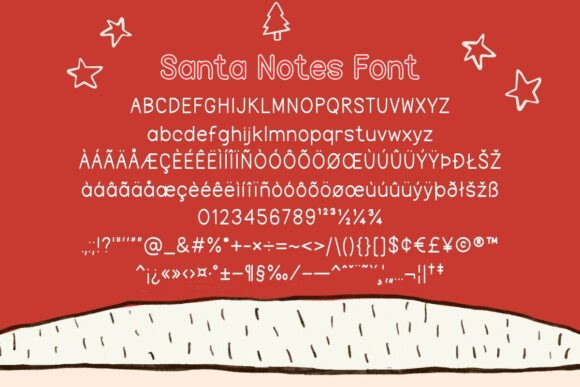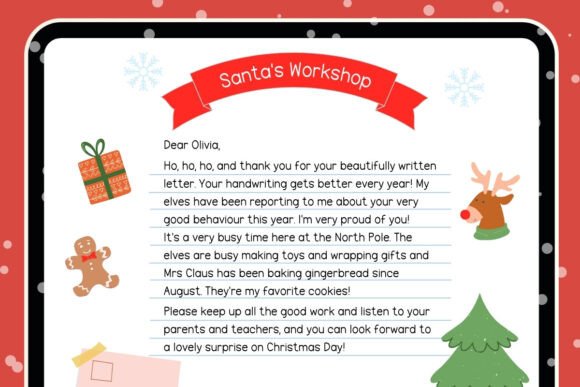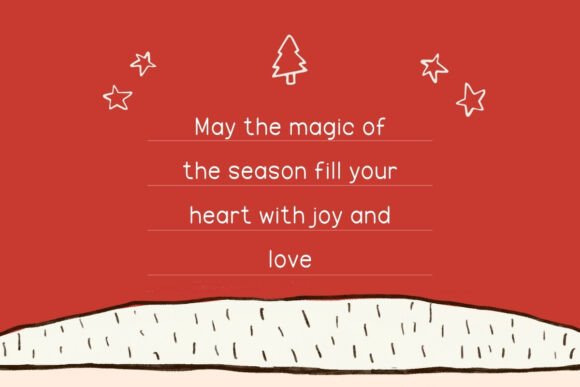
Introduction to Santa Notes Font
Have you ever found yourself scribbling notes in a meeting or brainstorming ideas for a creative project, only to realize that your handwriting just isn’t cooperating? The frustration of trying to decipher your own scribbles can be real, but what if you had a tool that made note-taking a breeze? Enter the Santa Notes Font, a high-quality, clean handwriting font designed to add elegance to your writing.
As a designer, you know the importance of having the right design resources at your fingertips. The Santa Notes Font is a valuable addition to any digital toolkit, offering a transparent background and a range of styles to suit your needs. Whether you’re working on a free download or a high-end project, this font is sure to impress.
Key Features of Santa Notes Font
- Unique handwritten style with a touch of whimsy, perfect for creative projects and design resources.
- High-quality design with clear and readable text, ideal for presentations, posters, and other visual content.
- Transparent background option allows for seamless integration with any background image or color, giving you complete creative control.
- Perfect for use in holiday-themed designs, such as Christmas cards, gift tags, and party invitations.
- Can be used in conjunction with other design elements, such as illustrations and graphics, to create a cohesive and visually appealing design resource.
Honest Review: Santa Notes Font
As a designer, I’m always on the lookout for unique and high-quality design resources to elevate my creative projects. The Santa Notes Font is one such resource that caught my attention. Here’s my honest review.
- Playful and festive feel: The font has a charming, handwritten quality that’s perfect for winter-themed or holiday projects.
- High-quality design: The font is well-crafted, with clear lines and a consistent aesthetic.
- Transparent background: The font’s transparent background allows for easy layering and mixing with other design elements.
- Limited font styles: While the font has a charming feel, it’s primarily designed for headings or short text snippets, which may limit its versatility.
- Lack of customization options: As a free font, the Santa Notes Font doesn’t offer many customization options, which may be a drawback for some designers.
Overall, the Santa Notes Font is a delightful addition to any designer’s toolkit, especially for holiday or winter-themed projects. While it may have some limitations, its high-quality design and free download make it a valuable resource to have in your collection.
Santa Notes Font: A Free Design Resource for Your Creative Project
The Santa Notes Font is a high-quality, free download that’s perfect for adding a festive touch to your design. With its transparent background, you can easily layer it over any image or design element.
Tips for Getting the Most Out of Santa Notes Font
To get the most out of the Santa Notes Font, try using it in combination with other design elements, such as images or shapes. You can also experiment with different font sizes and colors to create a unique look.
The Santa Notes Font is perfect for a variety of creative projects, including holiday cards, gift tags, and party invitations. It’s also great for adding a festive touch to your social media graphics or website design.
Yes, the Santa Notes Font is designed to work seamlessly with a transparent background, making it perfect for creating overlays, icons, or other design elements that require a clear background. Simply use a design software that supports transparent backgrounds, and you’re good to go!